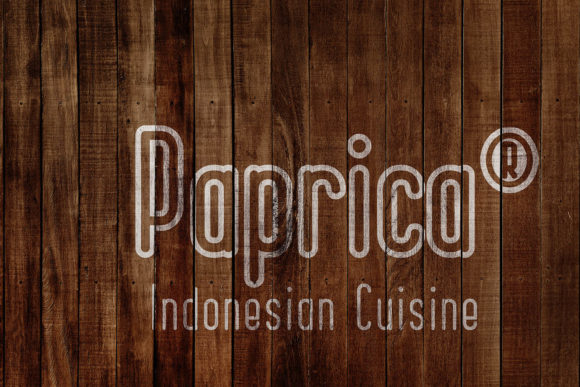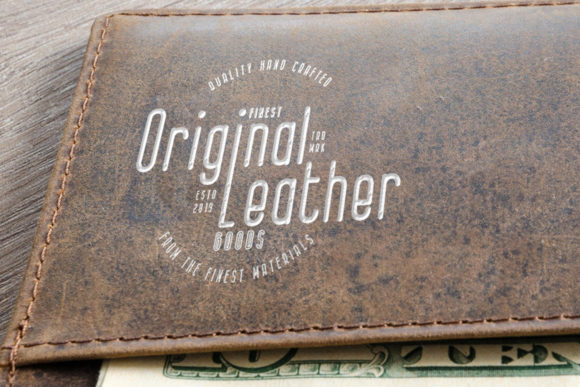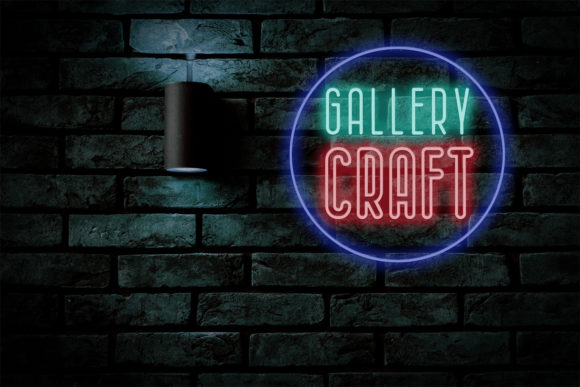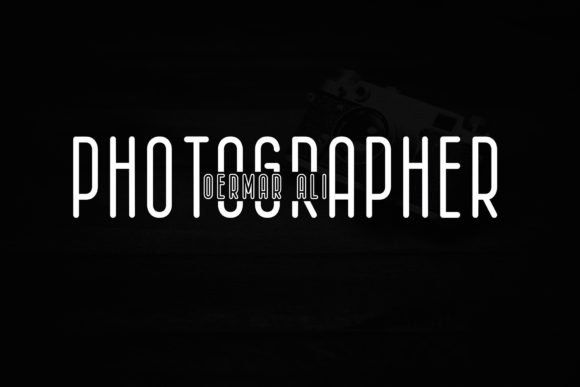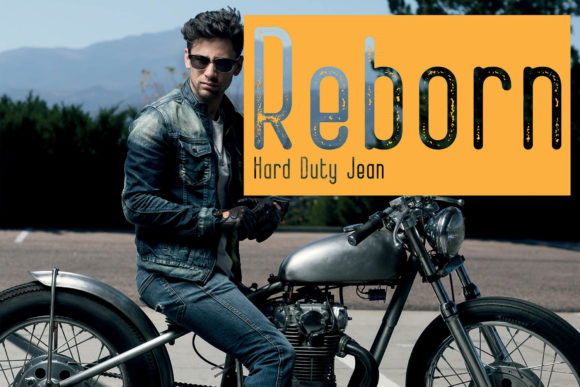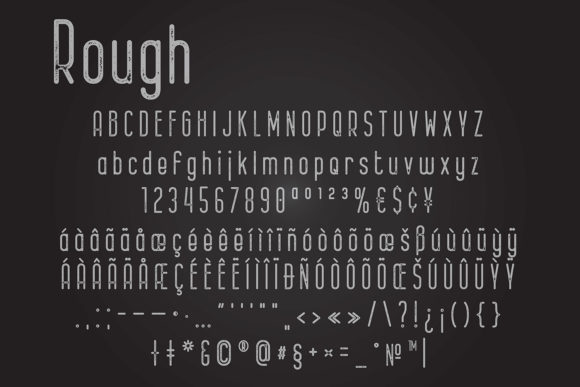
Discover the Versatility of Blacksmith Font: A Typeface Inspired by Craftsmanship
In the realm of typography, few fonts capture the essence of craftsmanship and transformation as elegantly as the Blacksmith Font. This remarkable typeface, available in three distinct weights, draws its inspiration from the meticulous work of a blacksmith, who transforms raw iron into finely crafted pieces. The Blacksmith Font embodies this process of refinement, offering designers and crafters a versatile tool for creating a wide range of visual expressions.
The Genesis of Blacksmith Font
The Blacksmith Font is more than just a collection of characters; it’s an experience. Its design is rooted in the traditional craftsmanship of blacksmithing, where raw materials are shaped and refined into something both functional and beautiful. This process is reflected in the font’s three weights: Clean, Outlined, and Rough. Each weight offers a unique aesthetic, allowing for a broad spectrum of design possibilities.
Clean Weight: Minimalism and Elegance
The Clean weight of the Blacksmith Font is characterized by its rounded corners and slim shape, exuding a minimalist impression. This variant is perfect for designs where a touch of elegance and subtlety is desired. The rounded edges soften the overall appearance, making it suitable for a variety of applications, from modern branding to personal stationery. The clean lines and uncluttered design ensure readability, making it an excellent choice for body text and headings.
Outlined Weight: A Touch of Sophistication
For designs that demand a bit more flair, the Outlined weight of the Blacksmith Font is an excellent option. This variant presents a fancy feel, ideal for highlighting titles, headings, or any design element that needs to stand out. The outlined style adds a layer of sophistication and can be used effectively in both digital and print media. When used in conjunction with the Clean weight, it creates a visually appealing contrast that can elevate any design.
Rough Weight: Embracing the Vintage and Rustic
The Rough weight of the Blacksmith Font takes a different approach, offering a vintage, rustic, and grunge look. This variant is perfect for designs that aim to evoke a sense of age, durability, and raw craftsmanship. The rough texture adds character and depth, making it suitable for use in designs that benefit from a nostalgic or industrial feel. Whether it’s for a vintage-inspired branding project, an album cover, or a DIY craft project, the Rough weight brings a unique charm.
Combining Weights for Endless Design Possibilities
One of the most significant advantages of the Blacksmith Font is its versatility, particularly when combining its three weights. Designers can mix and match the Clean, Outlined, and Rough weights to create an endless array of unique designs. For instance, using the Clean weight for body text and the Outlined or Rough weights for headings can add depth and interest to any layout. This flexibility makes the Blacksmith Font an invaluable resource for creatives looking to push the boundaries of typography and design.
The Blacksmith Font is a testament to the power of typography in design. Its inspiration from the traditional craft of blacksmithing is evident in its robust yet refined aesthetic. With its three distinct weights, this typeface offers a wide range of creative possibilities, making it an essential tool for designers and crafters alike. Whether you’re aiming for a minimalist look, a touch of sophistication, or a vintage feel, the Blacksmith Font provides the versatility and elegance needed to bring your vision to life.
Incorporating the Blacksmith Font into your design projects not only pays homage to the art of blacksmithing but also equips you with a typeface that can adapt to any design challenge. Its unique blend of styles ensures that your work stands out, telling a story of craftsmanship and attention to detail. Discover the potential of the Blacksmith Font and let its versatility inspire your next creative endeavor.